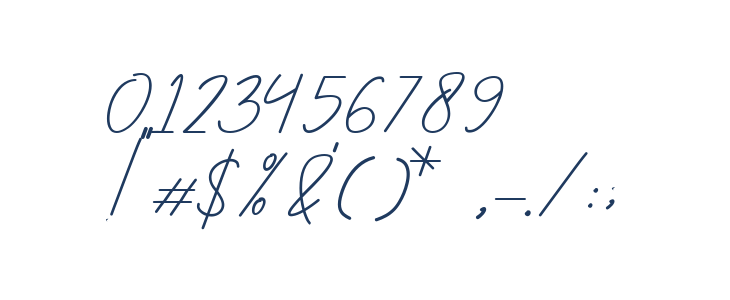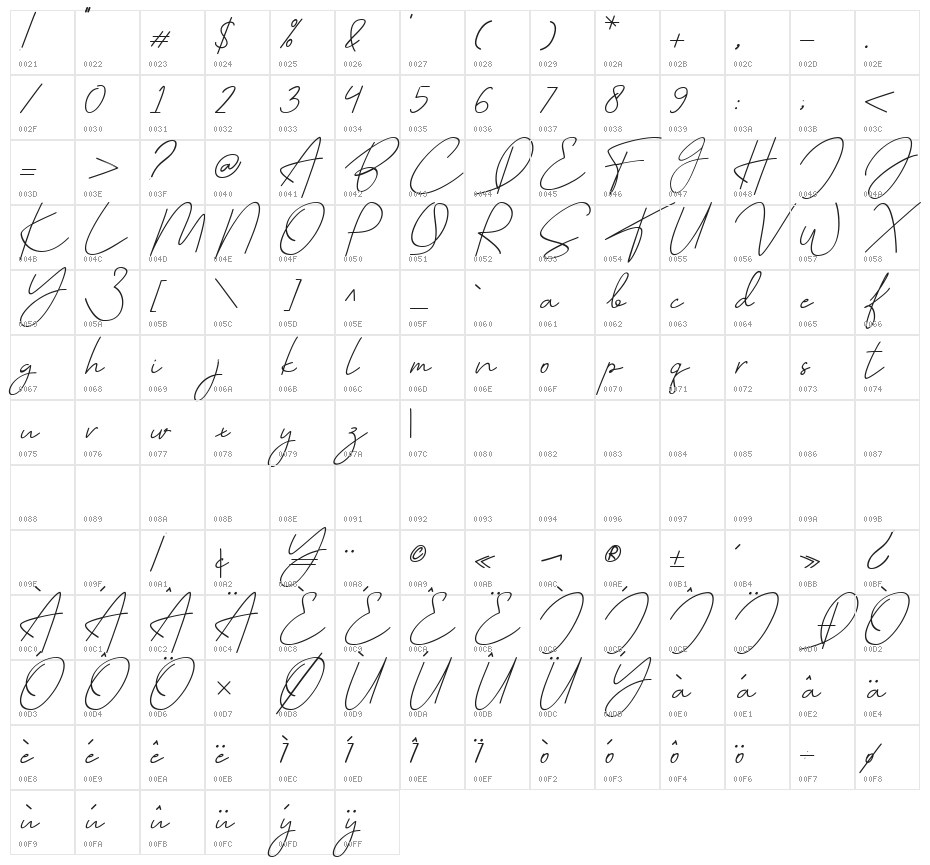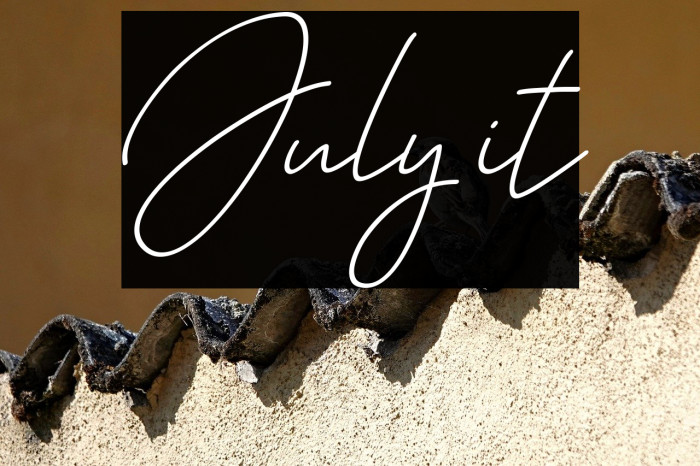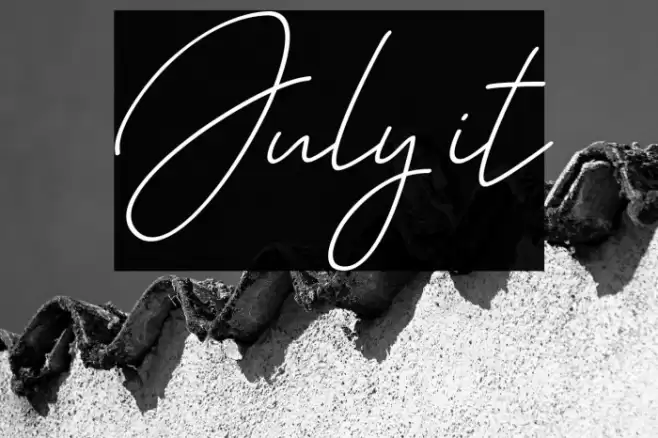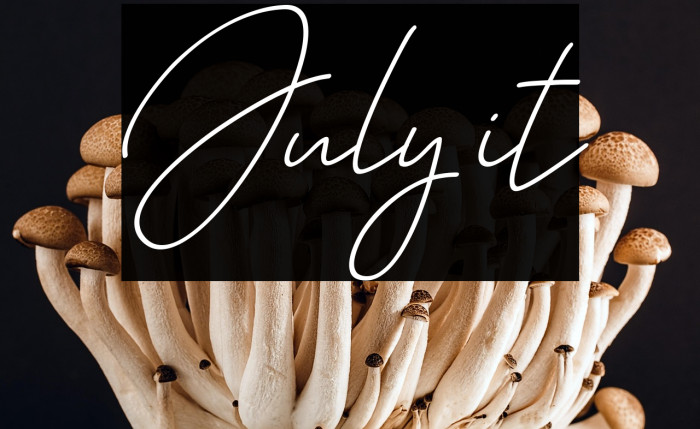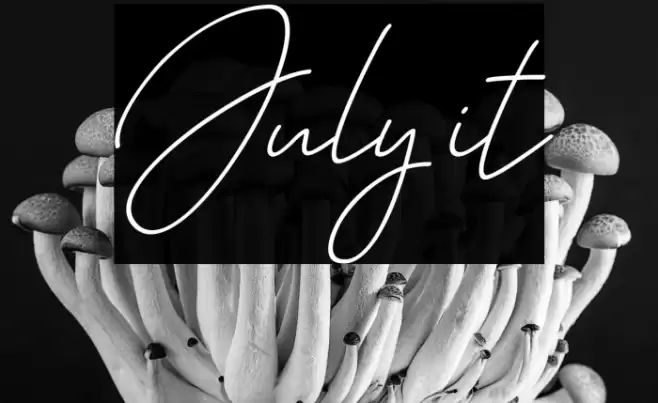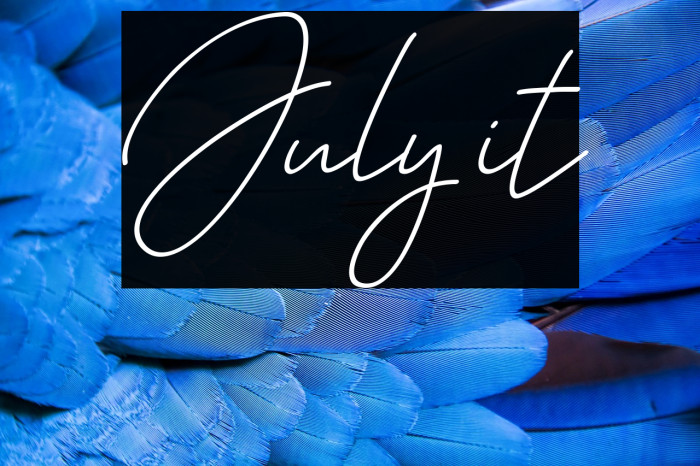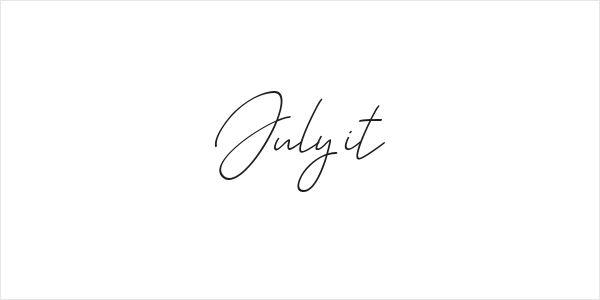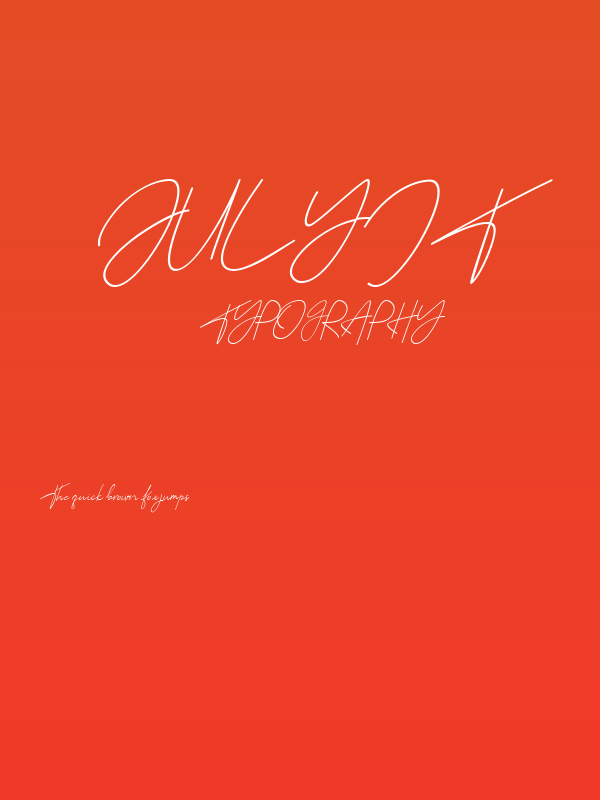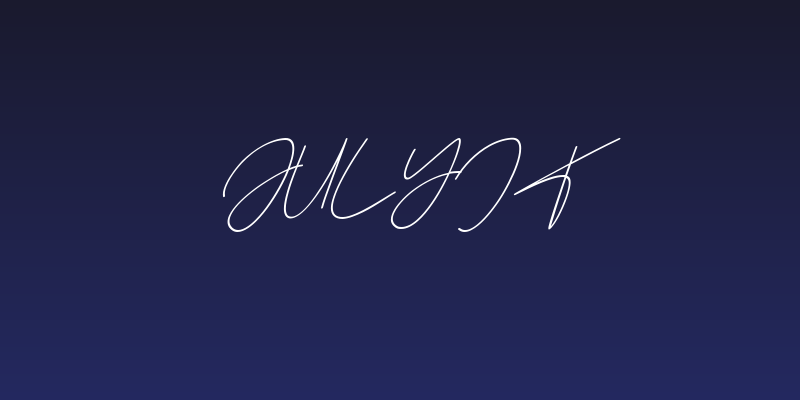
July it Font
July it Description
This font features a fluid, cursive style that mimics elegant handwriting. The uppercase letters are tall and slender, with a slight slant that adds a sense of motion and grace. Lowercase letters are more compact, maintaining the same slant and fluidity, which gives the text a cohesive and harmonious appearance. The numerals are consistent with the overall style, offering a clear and stylish look. Special characters are thoughtfully designed to match the script's aesthetic, making this font versatile for various uses.
Overall StyleElegant, Handwritten
Use CaseLogos, Invitations, Artistic projects
Proposed ProjectsIdeal for wedding invitations, personal branding, elegant stationery, and artistic projects.